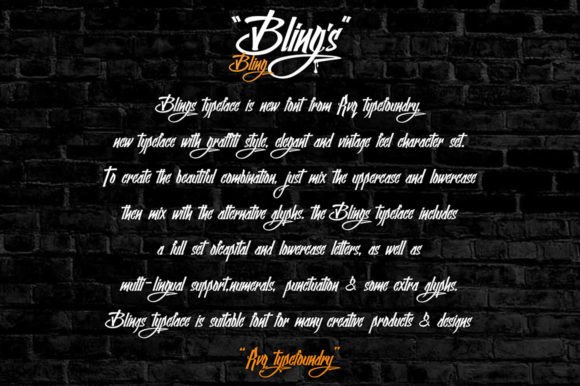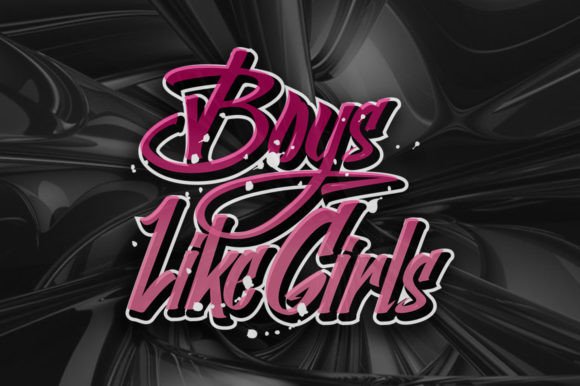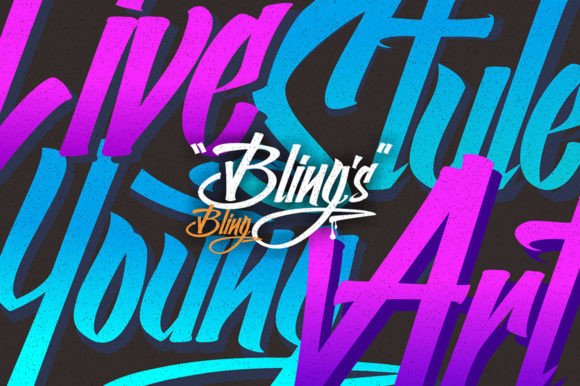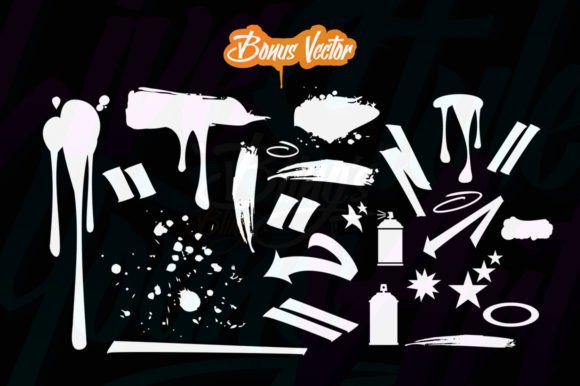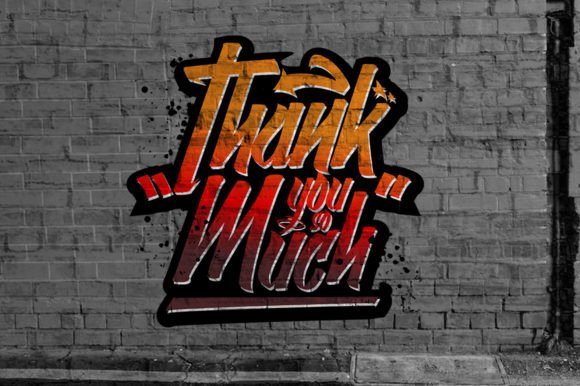
Blings Handwritten Font – Modern and Urban Typeface
The Blings Handwritten Font is a stylish and modern typeface that captures the spirit of urban design. With its unique handwritten strokes and bold energy, it is designed to make your projects stand out. Whether you’re creating logos, branding, or quotes, this font adds personality and flair to every design.
A Handwritten Script with Style
The Blings Handwritten Font combines casual handwritten curves with a modern urban vibe. Each character is carefully designed to provide individuality and charm. Because of its distinctive style, it works beautifully across both digital and print projects, adding a personal yet professional touch.
Perfect for Logos and Branding
One of the strongest uses of the Blings Handwritten Font is in logos and branding projects. Its bold strokes and stylish flow make brand identities feel modern and memorable. At the same time, it works well for posters, social media graphics, and merchandise, giving designs an edgy and creative personality.
The Blings Handwritten Font adapts easily to a wide range of design uses. From event posters and website headers to product packaging and quotes, it provides an urban handwritten charm that makes designs stand out. Its unique flow ensures it works equally well in professional branding and personal projects.
Why Designers Love Blings Font
Designers appreciate the Blings Handwritten Font for its modern style and usability. It has enough personality to make bold statements, yet it maintains clarity for practical design needs. This balance makes it a reliable and trendy choice for various creative applications.